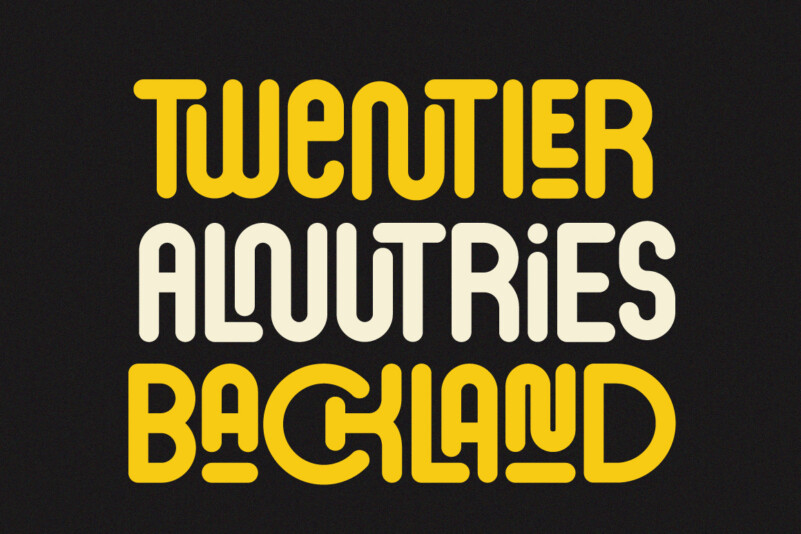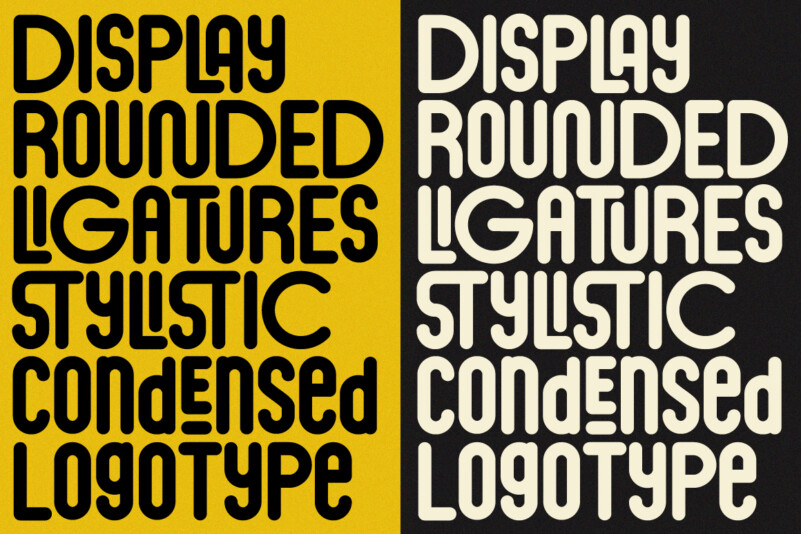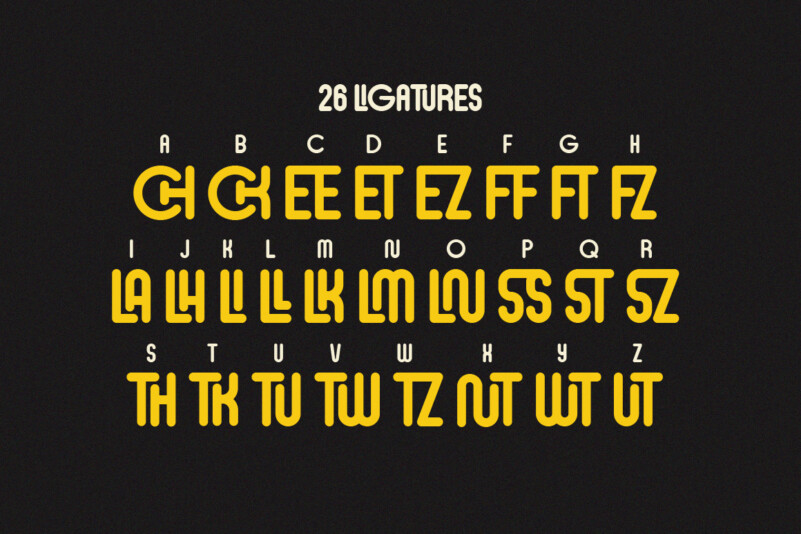
Chalmone Font
Chalmone Font is a condensed and rounded sans-serif font with a bold and distinctive personality. It features 26 unique ligatures and alternative underlined fonts. This font is intentionally designed for use in larger point sizes,